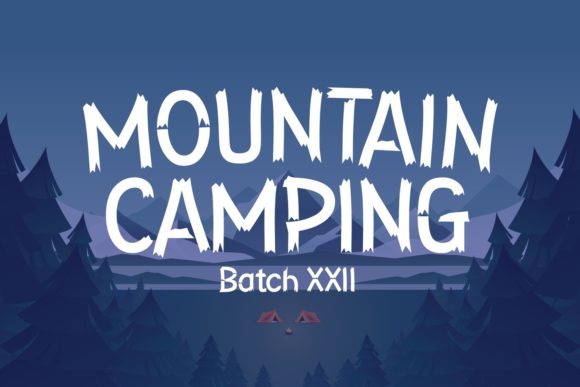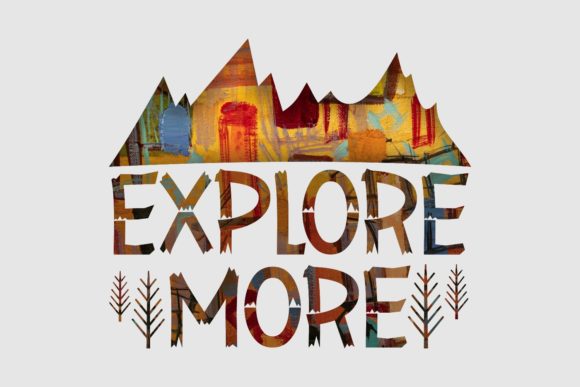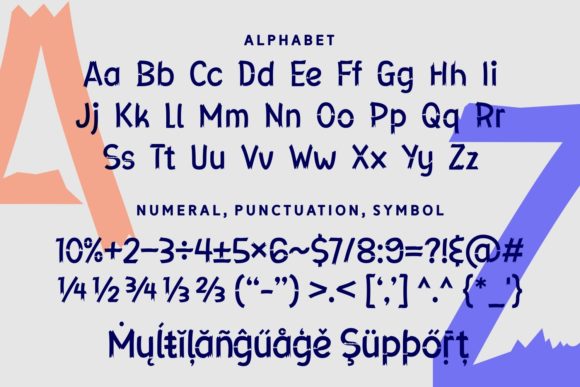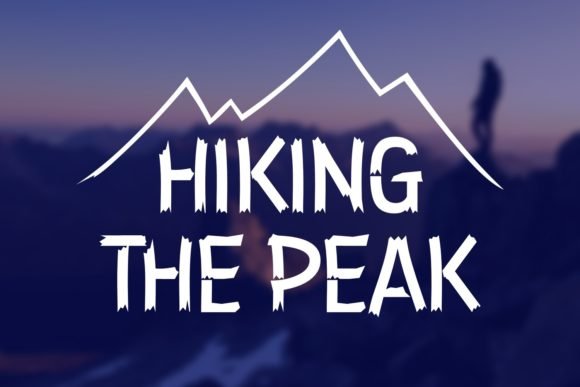
Introduction to Hiking the Peak Font
Hiking the Peak is a fun and dynamic display font.
Each glyph has a distressed effect perfect for camping, adventure, and travel-related projects It is compatible with cutting machines including Cricut and Silhouette.